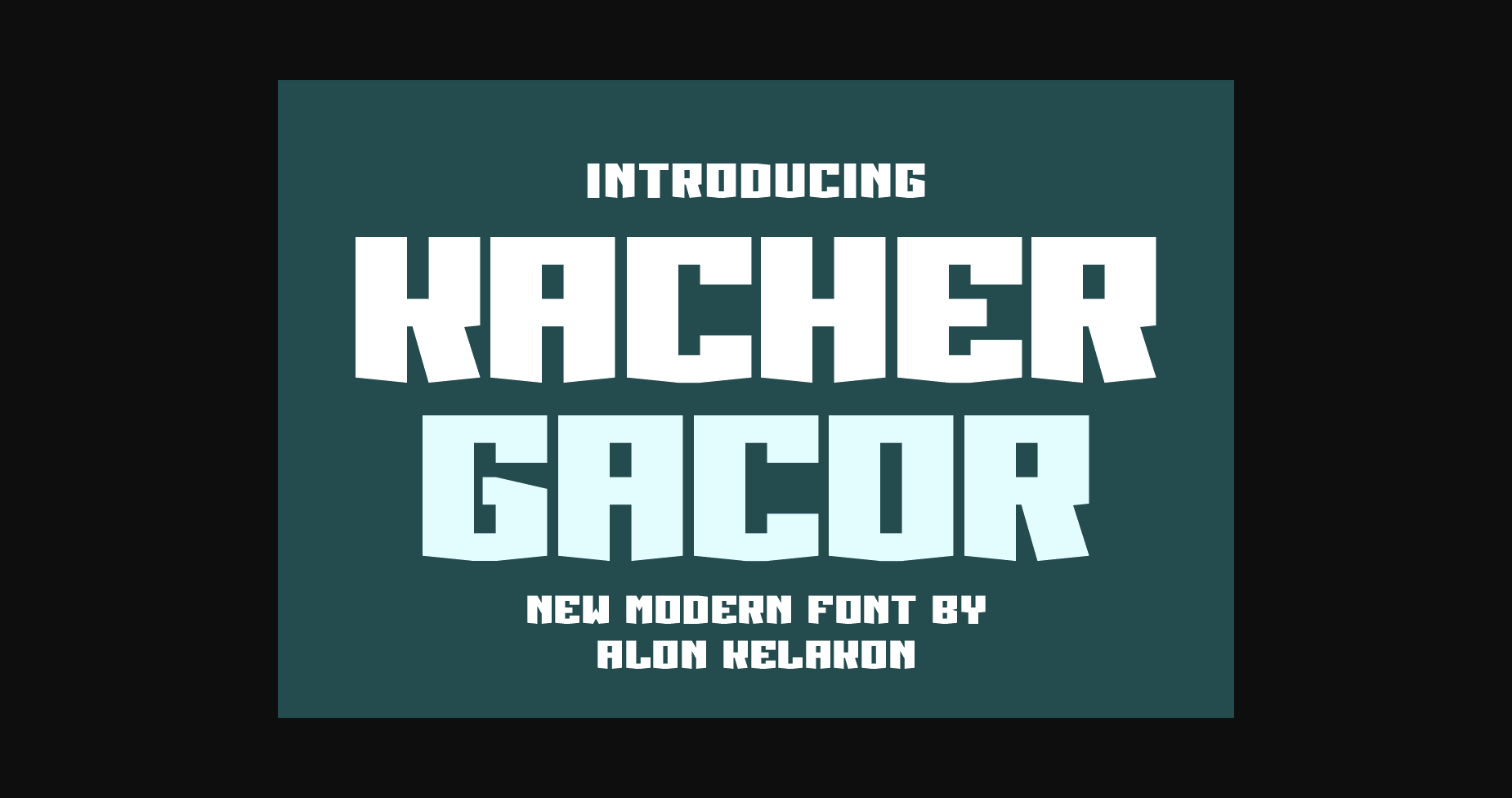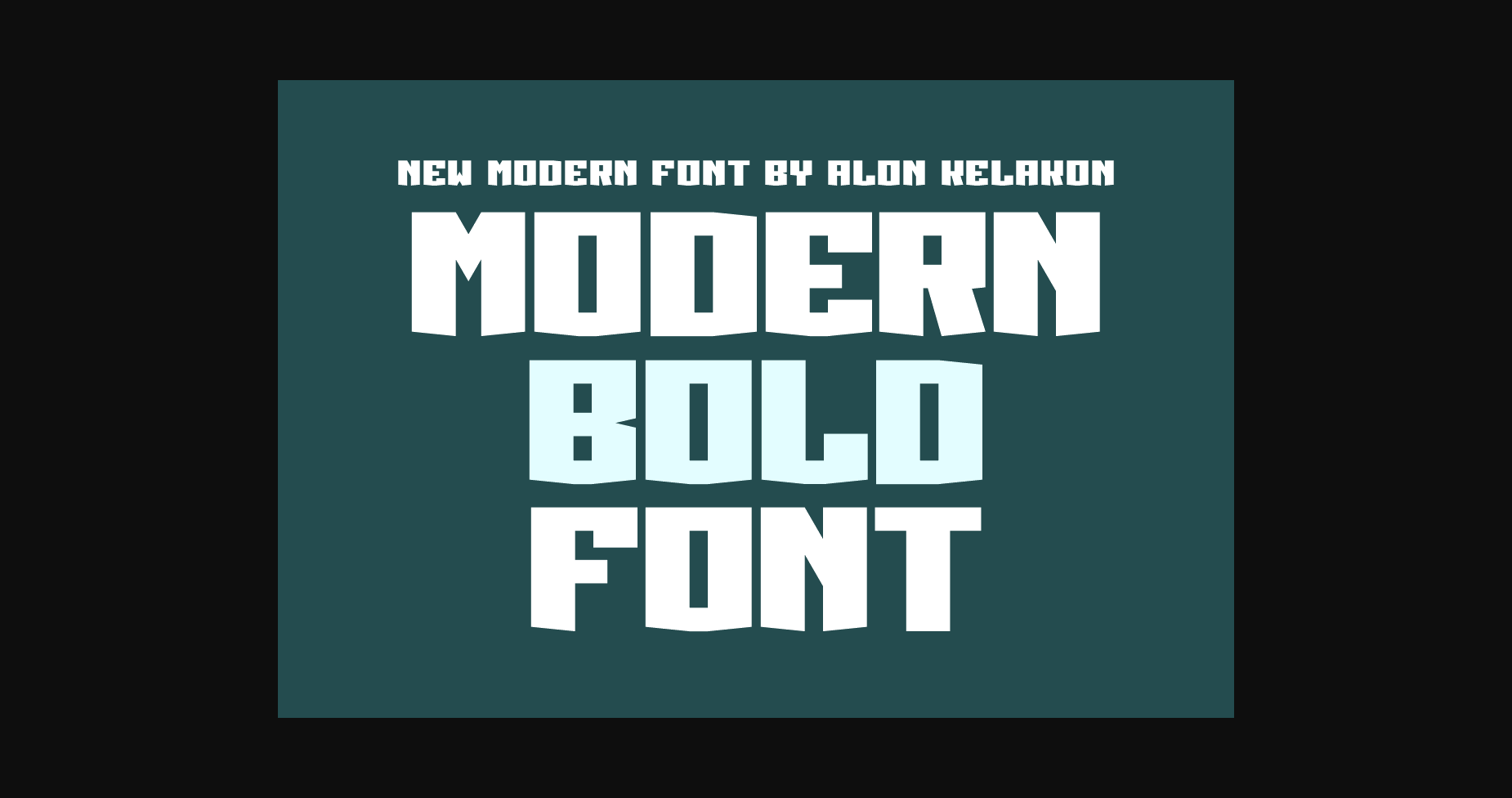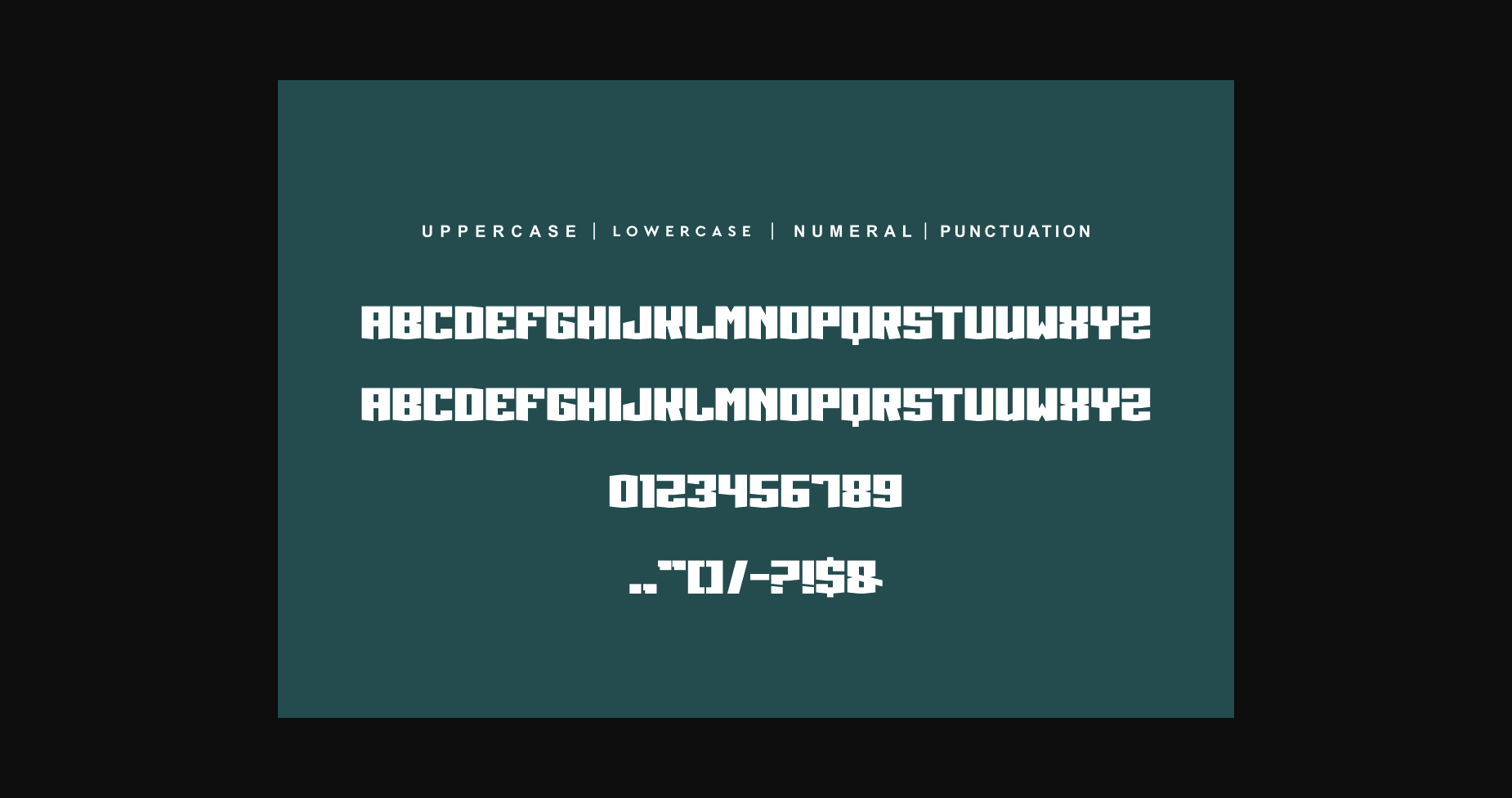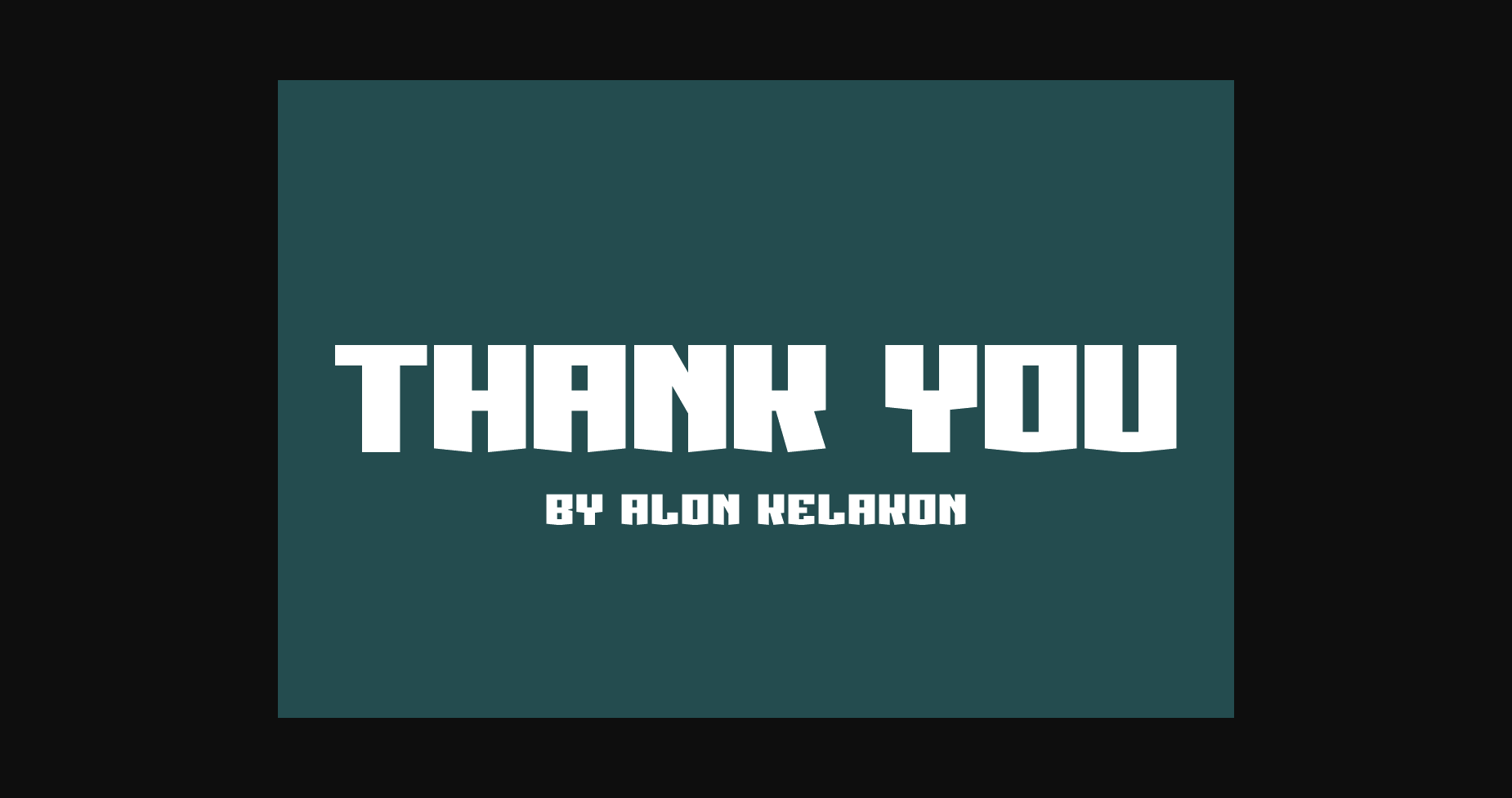
Kacher Gacor Font
About Kacher Gacor Font
Kacher Gacor is a unique and attractive font. Ready to use for your design like labeling, clothing, movie scenes, poster, movie title, gigs, album covers, logos, and much more.